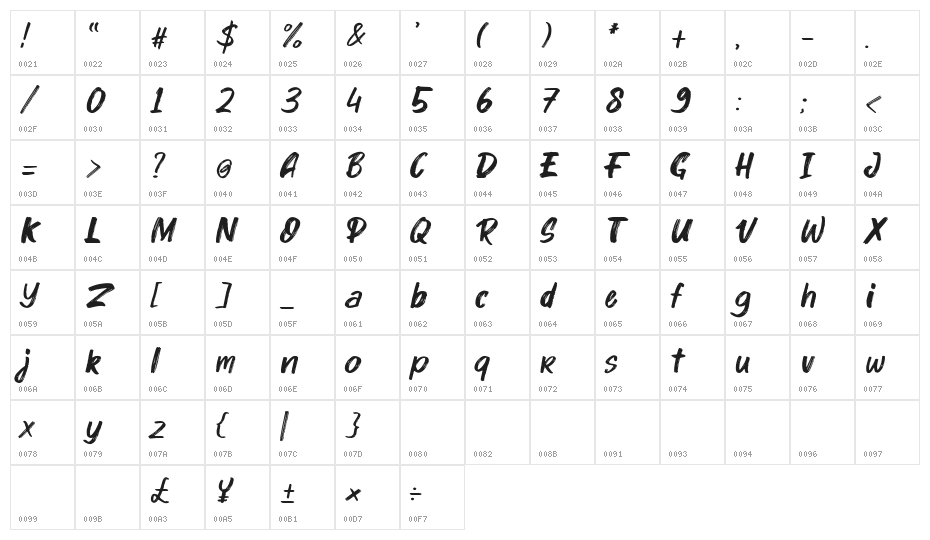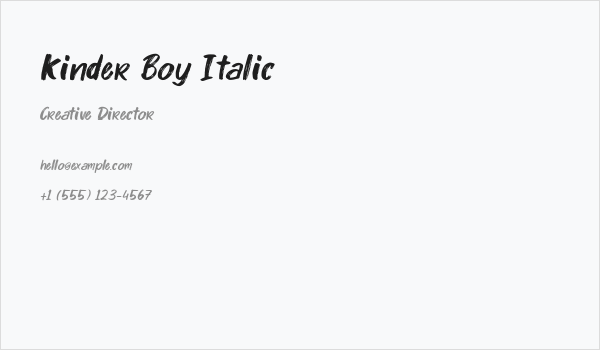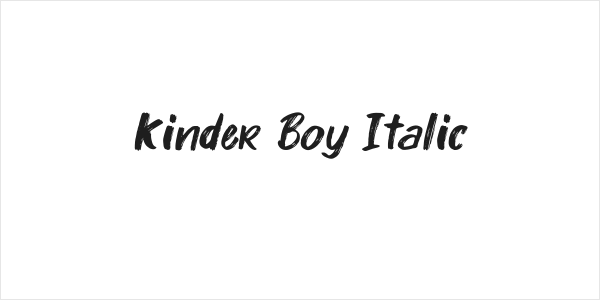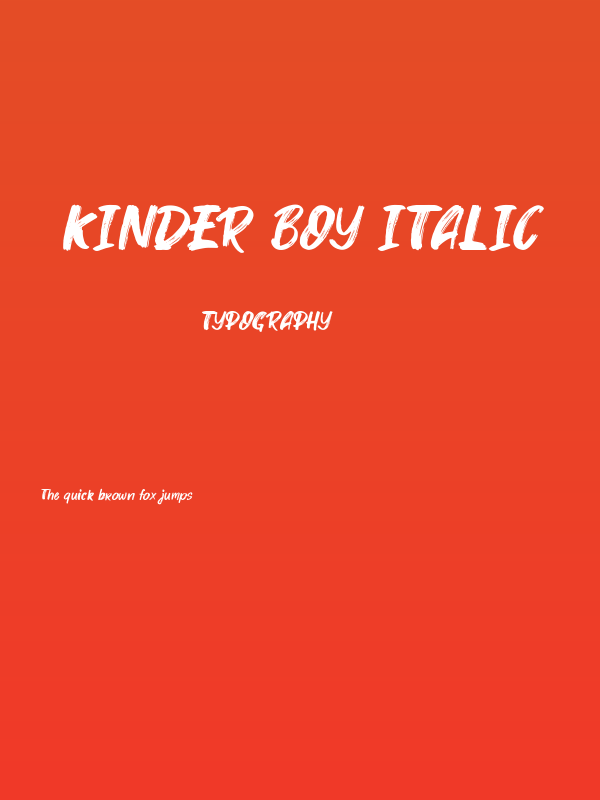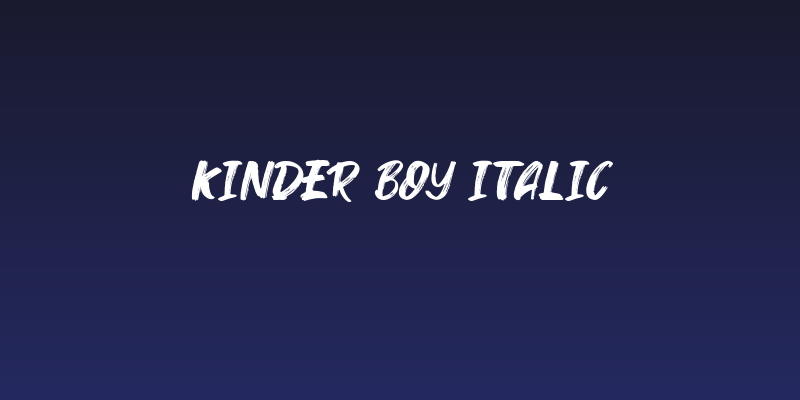
Kinder Boy Italic Font
Kinder Boy Italic Description
This font exudes a playful and energetic vibe with its brush-like strokes and dynamic slant. The letters are bold and expressive, with a hand-painted appearance that adds a sense of movement and spontaneity. The uppercase and lowercase characters maintain a consistent style, with slightly exaggerated curves and angles that enhance their visual impact. The numbers and special characters are equally bold, ensuring they stand out in any design. This font's unique style makes it perfect for projects that require a touch of creativity and flair.
| Proposed Projects | Ideal for creative projects such as posters, logos, branding, and social media graphics that require a bold and artistic touch. |